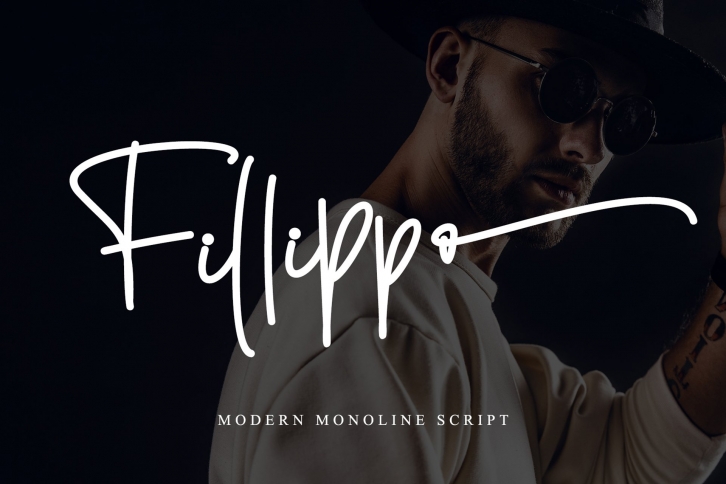
Fillippo is a trendy and unique font with an authentic style. It was designed by Stefani Letter and it's a great choice for creative people who need such a font. It was released on November 5, 2021 and the file size is 13.69 MB. Fillippo will add an organic vibe to any design idea!